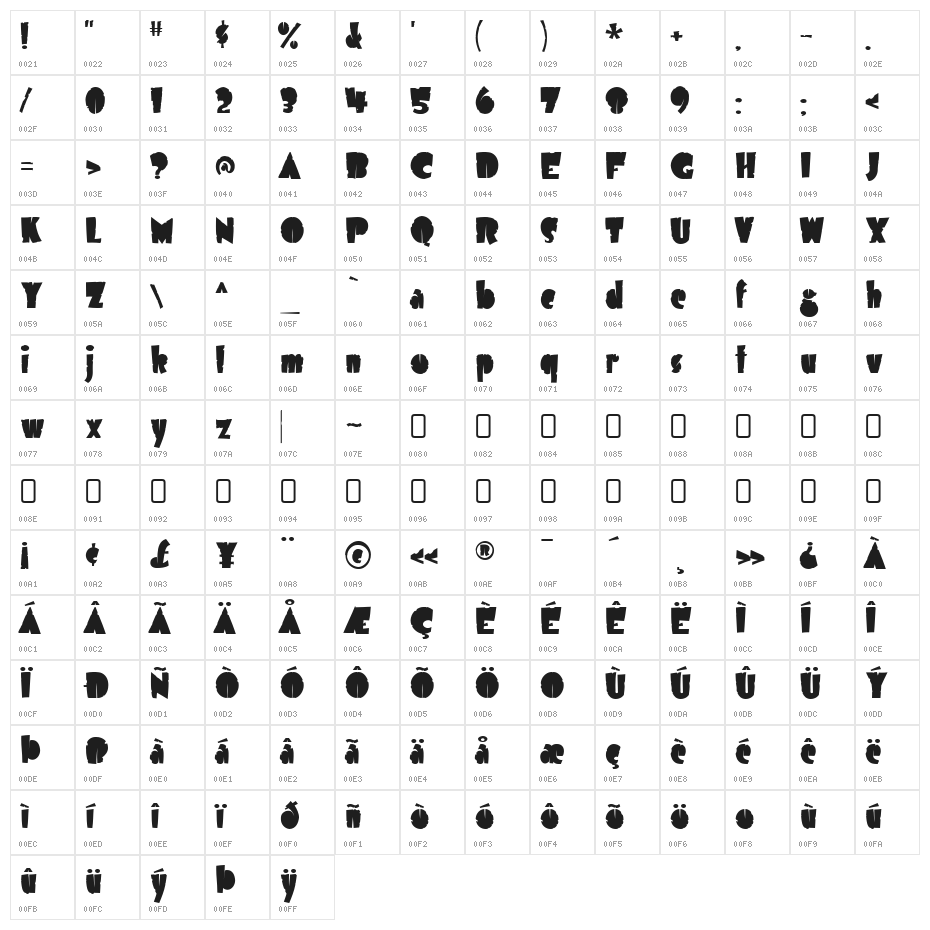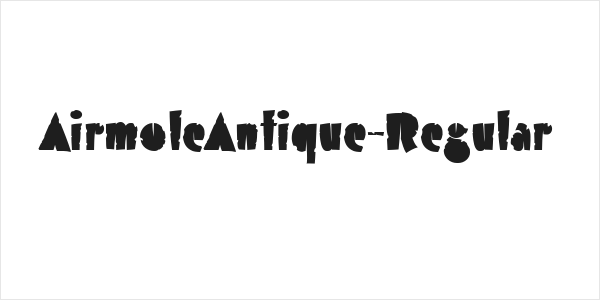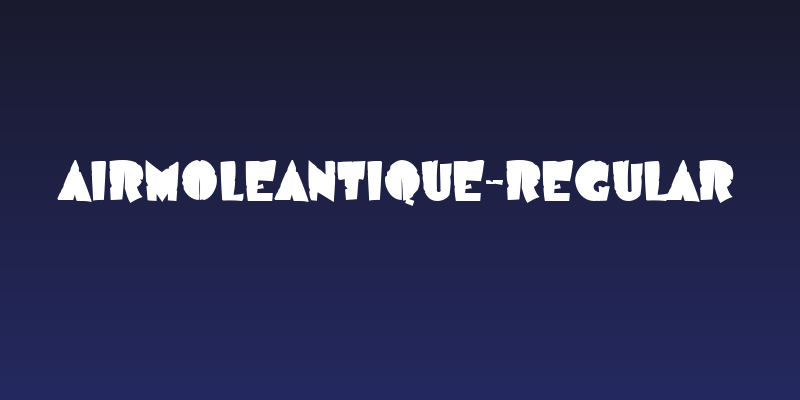
AirmoleAntique-Regular Font
AirmoleAntique-Regular Description
This font features a bold and dramatic style with a distinct vintage flair. The characters are heavily stylized with thick strokes and irregular edges, giving them a rough, hand-crafted appearance. The uppercase and lowercase letters maintain a consistent weight, contributing to a cohesive look. The numbers and special characters follow the same design principles, ensuring uniformity across all glyphs. This font's unique aesthetic makes it stand out, ideal for projects that require a strong visual impact.
| Use Case | Logos, Posters, Headlines |
| Proposed Projects | Ideal for posters, logos, album covers, and any design requiring a bold, vintage aesthetic. |